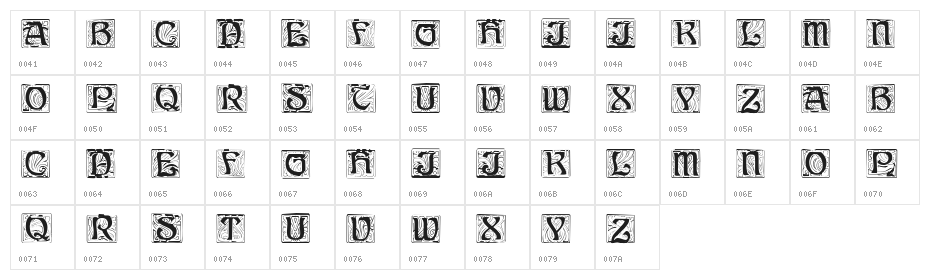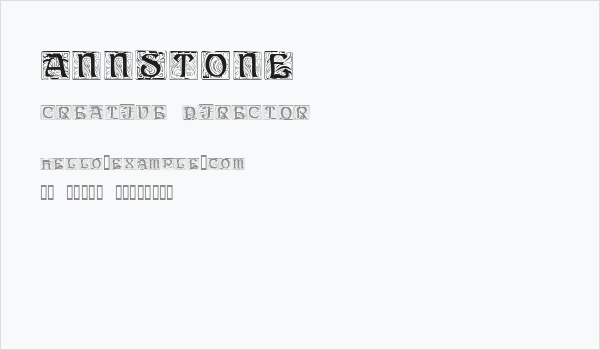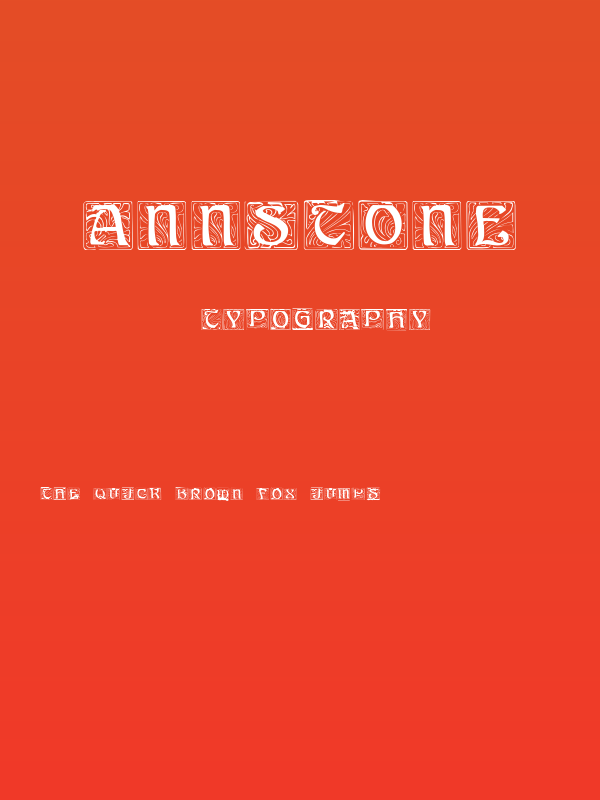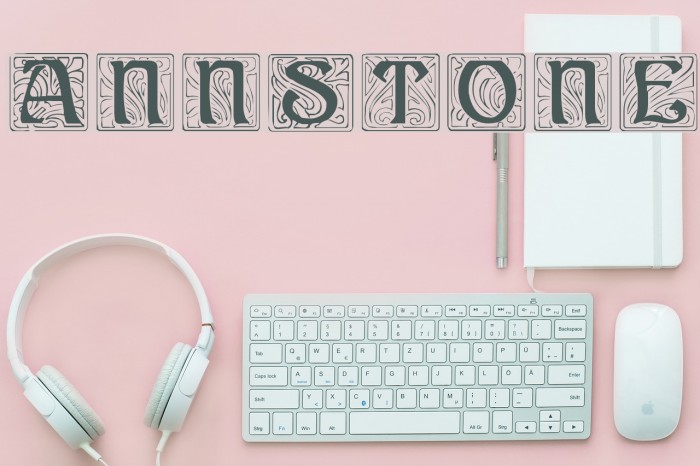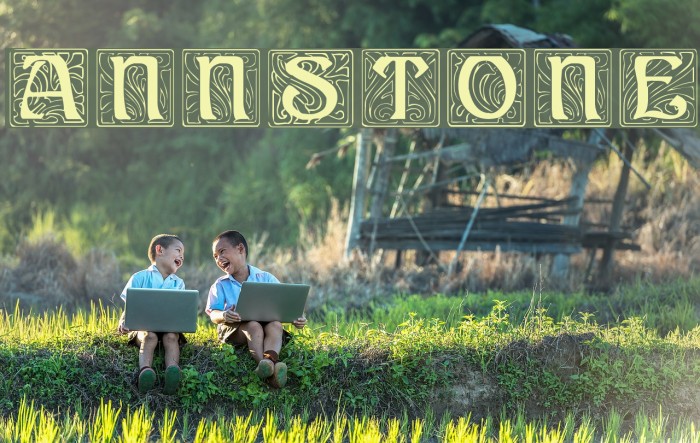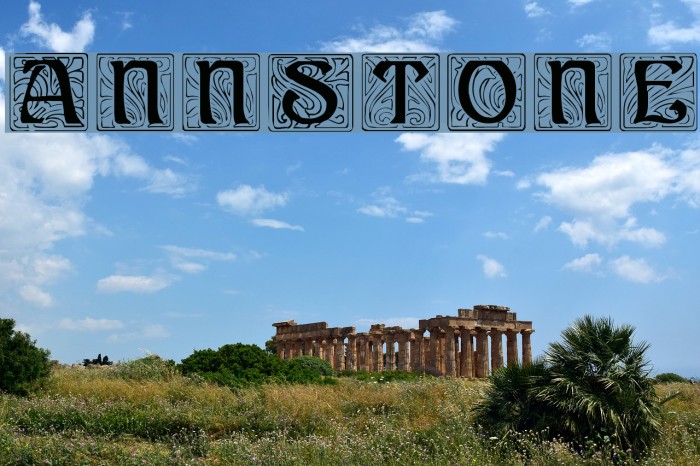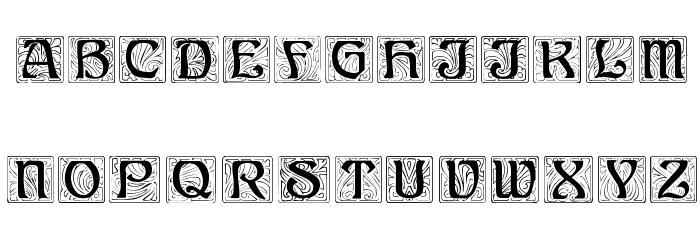
AnnStone Font
This font features an intricate and decorative design, with each letter encased in a square border filled with swirling, ornate patterns. The characters are bold and stand out due to the high contrast between the thick strokes of the letters and the detailed background. The style is reminiscent of vintage or classical designs, making it ideal for projects that require a touch of elegance and sophistication. The uppercase letters are uniform in size, and the overall presentation is both artistic and structured, offering a unique visual appeal.
| Overall Style | Vintage |
| Use Case | Logos, Headlines, Decorative text |
| Proposed Projects | Ideal for wedding invitations, vintage-themed posters, book covers, and decorative signage. |